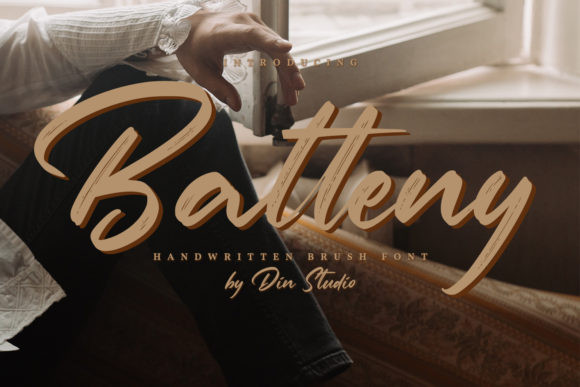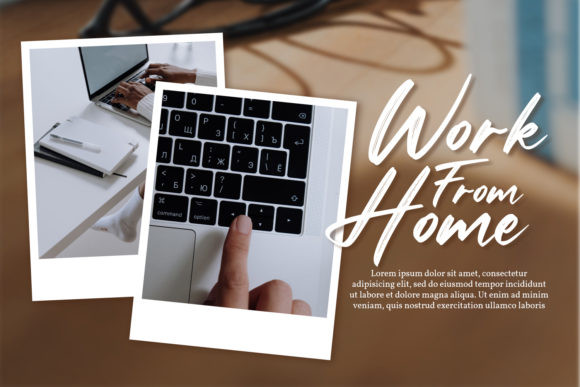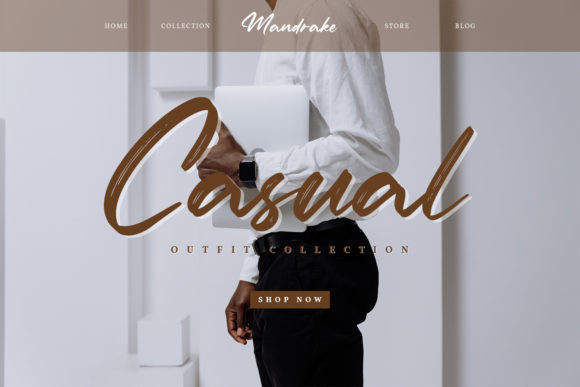
Batteny Font
Batteny is an incredibly distinct, delicate and timeless handwritten font, created with the help of a brush pen. It looks stunning on wedding invitations, thank you cards, quotes, greeting cards, logos, business cards and every other design which needs a handwritten touch.